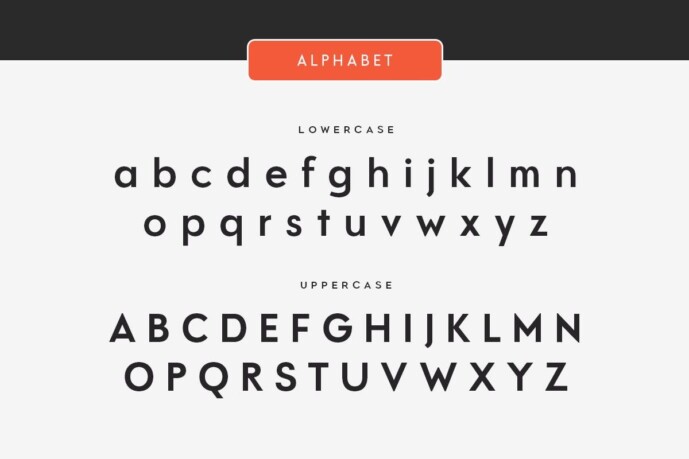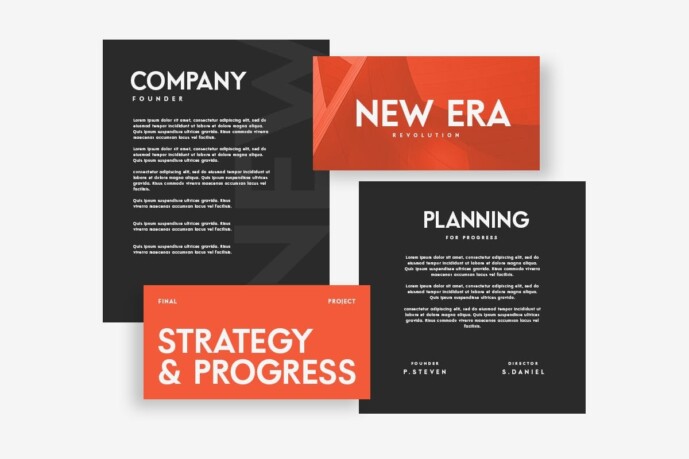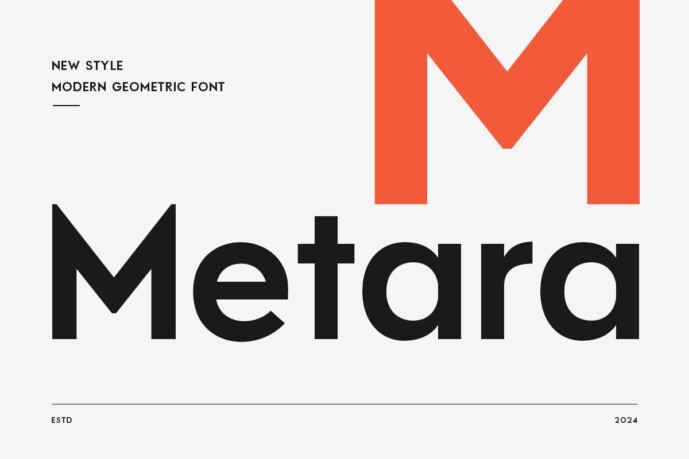
Metara Font
Metara Font is a modern geometric font which is a well-balanced modern font with a minimalist, unique and premium sans serif font, which you can combine to easily get unique variations and shapes in seconds by choosing alternatives. This is a sans serif font with a minimalist style, perfect for branding projects, logos, poster designs, social media posts, advertisements, product packaging, product designs, labels, photographs, watermarks, invitations, stationery and any other project, it offers a high standard readability.